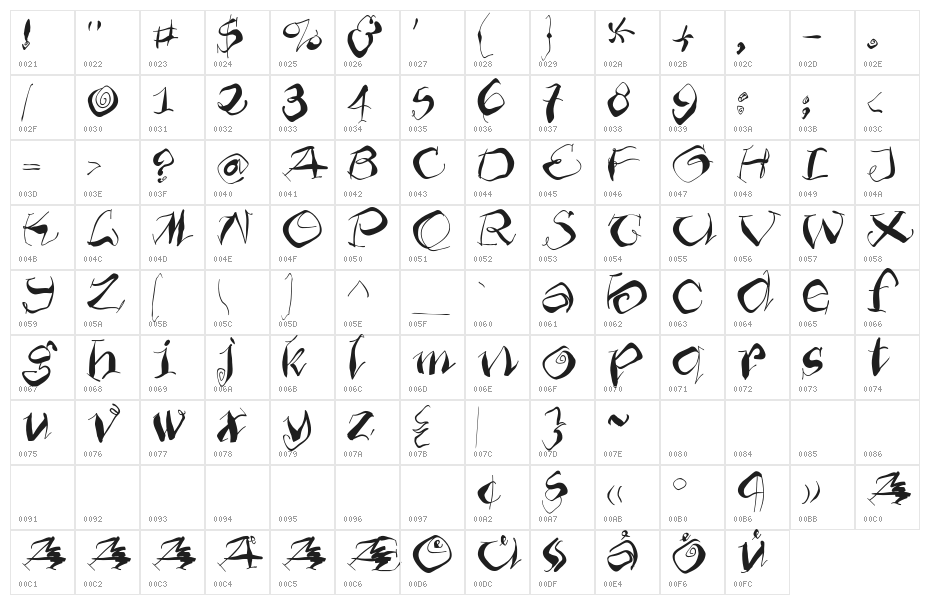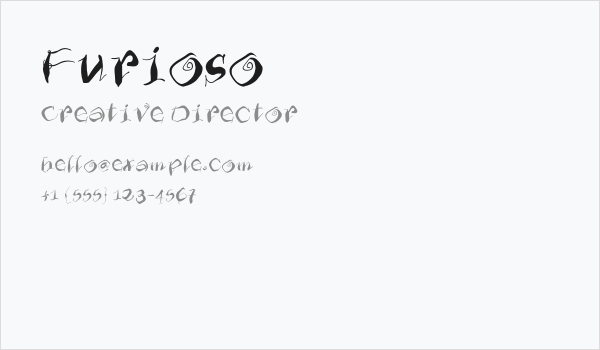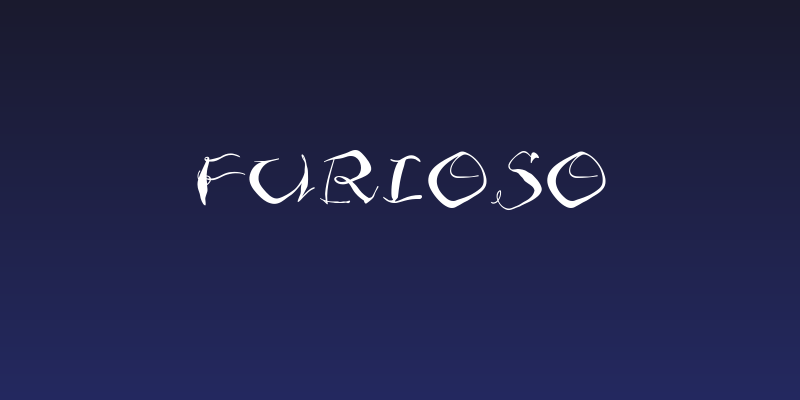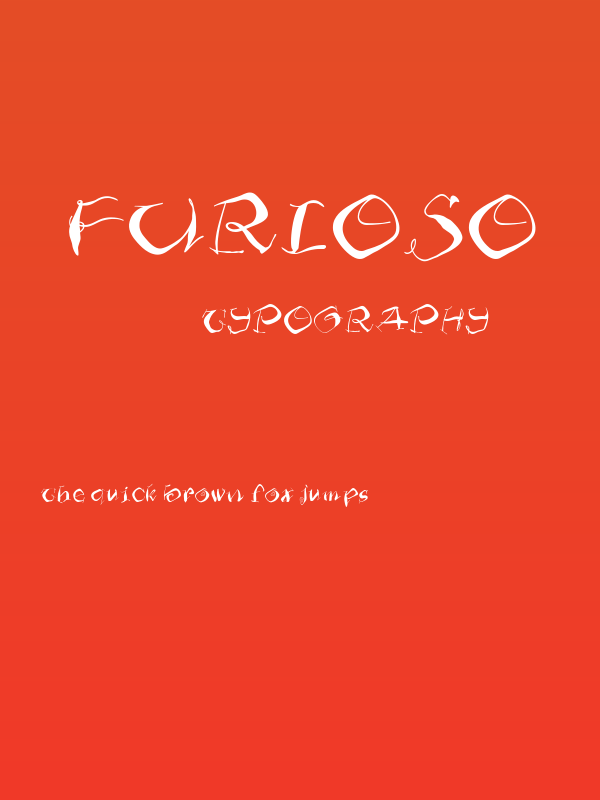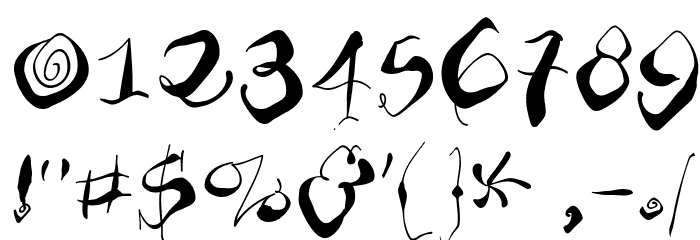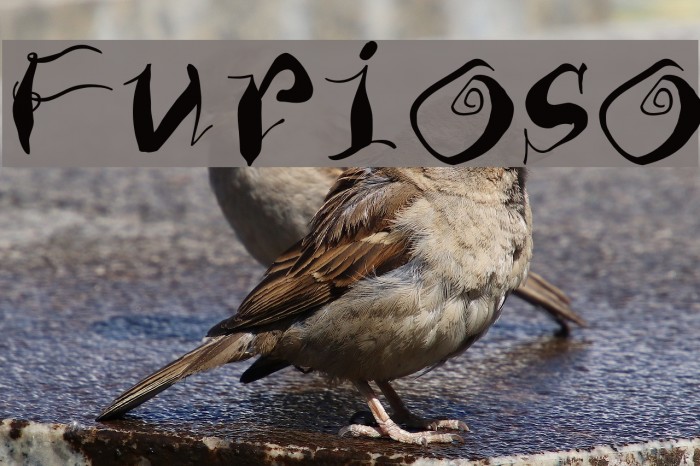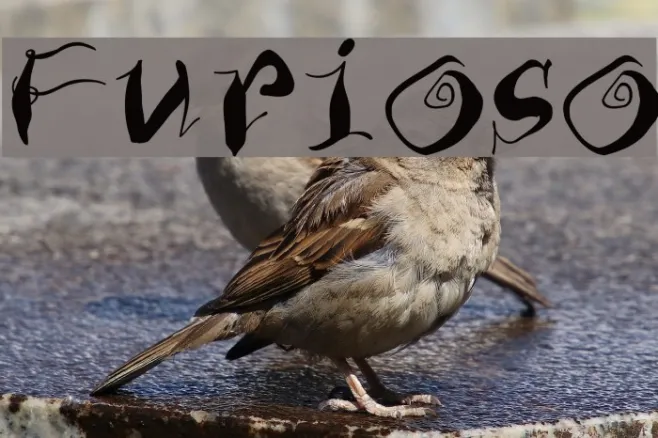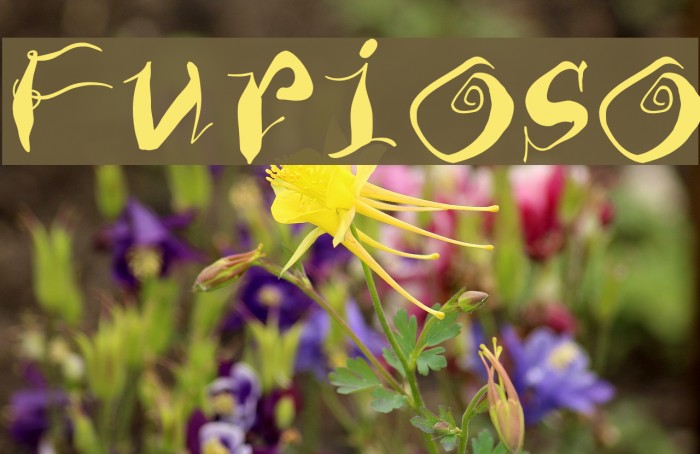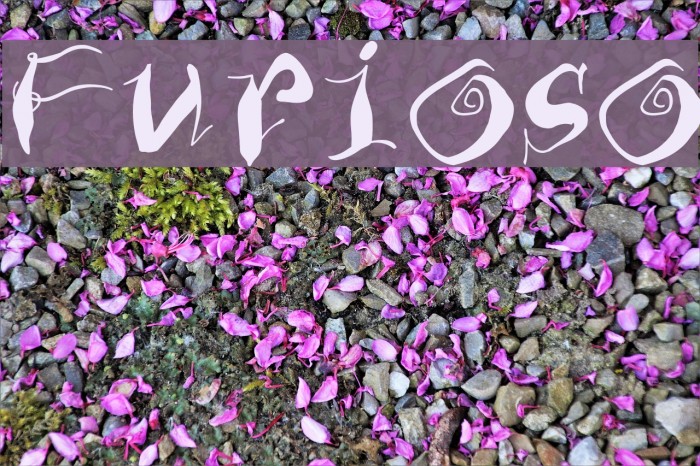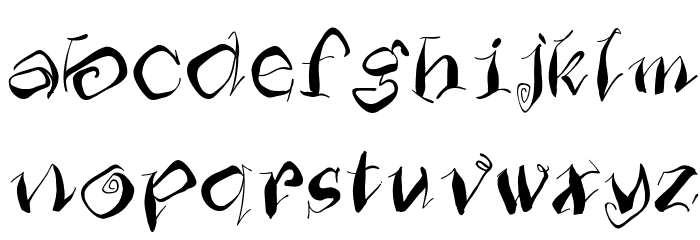
Furioso Font
Furioso Description
This font features a highly decorative and artistic style, characterized by its swirling, calligraphic strokes and unique, whimsical flair. Each letter is crafted with intricate details, giving it a dynamic and expressive appearance. The uppercase letters exhibit a bold presence with exaggerated curves and flourishes, while the lowercase letters maintain a consistent flow with a slightly more restrained design. The numerals and special characters continue this theme, offering a cohesive look across all glyphs. This font's distinctiveness makes it stand out, perfect for creative and artistic projects.
| Use Case | Logos, Headlines, Artistic projects |
| Proposed Projects | Ideal for artistic projects, invitations, posters, and branding that require a unique and creative touch. |